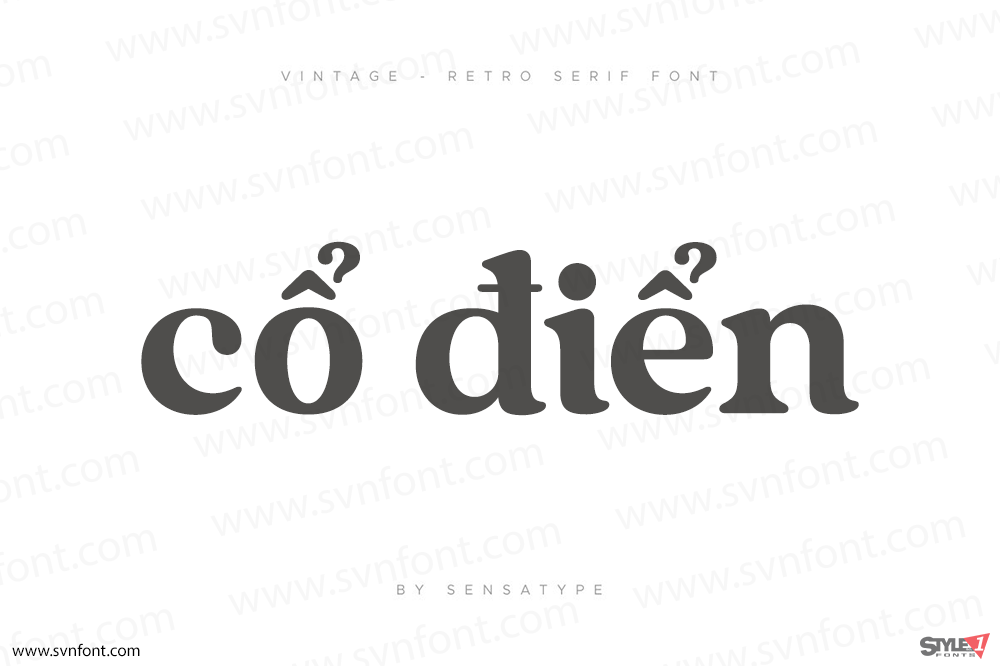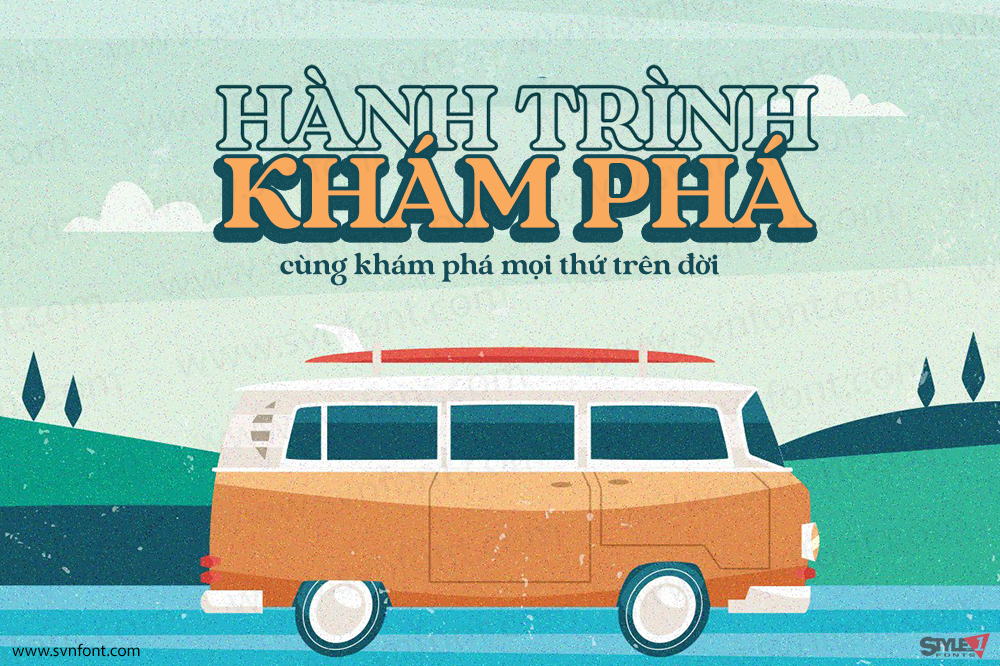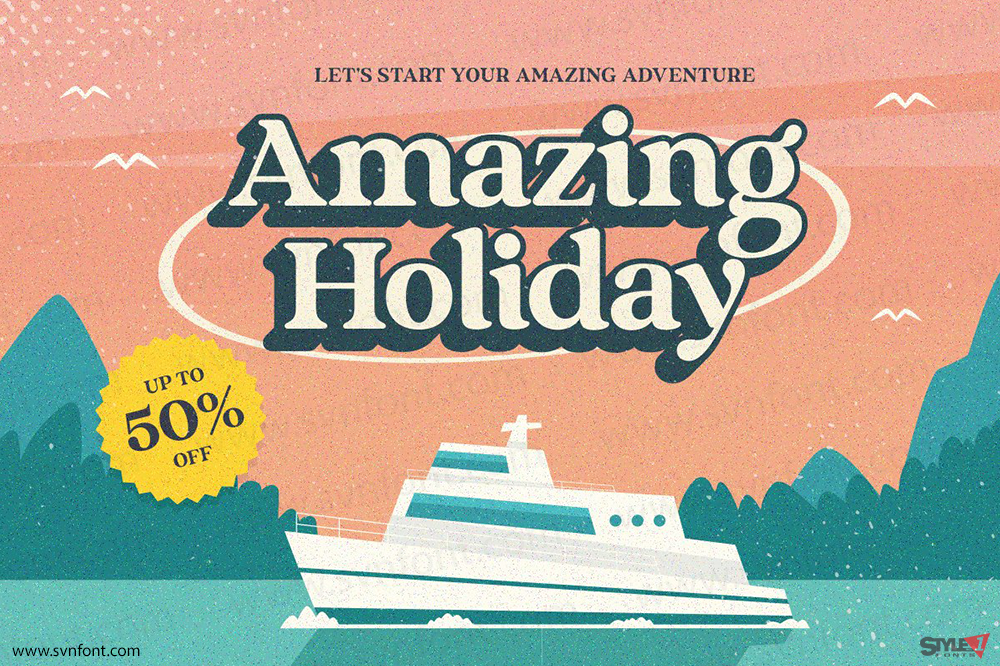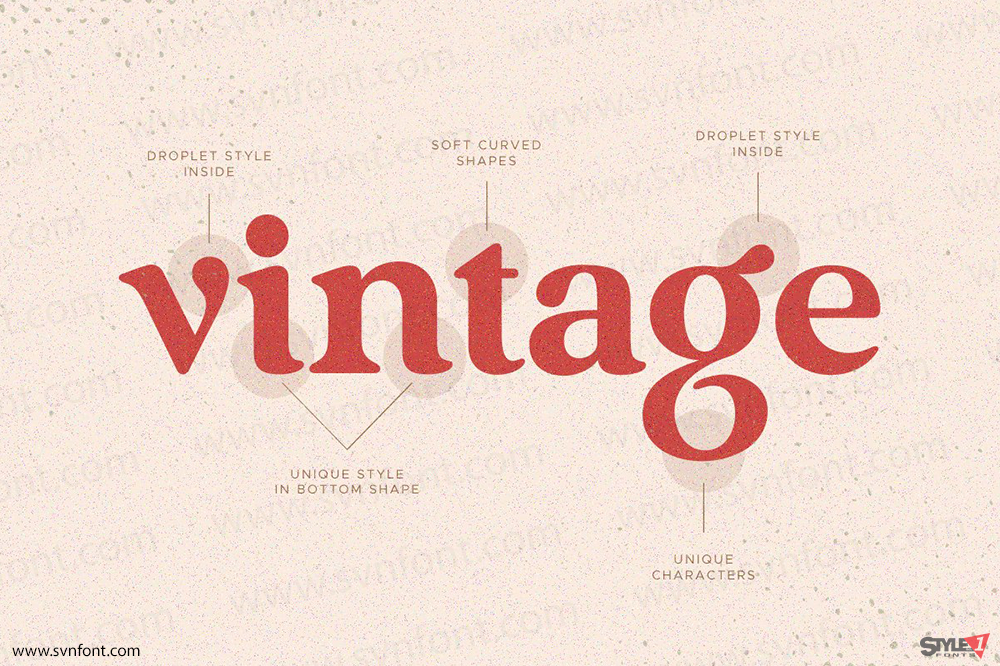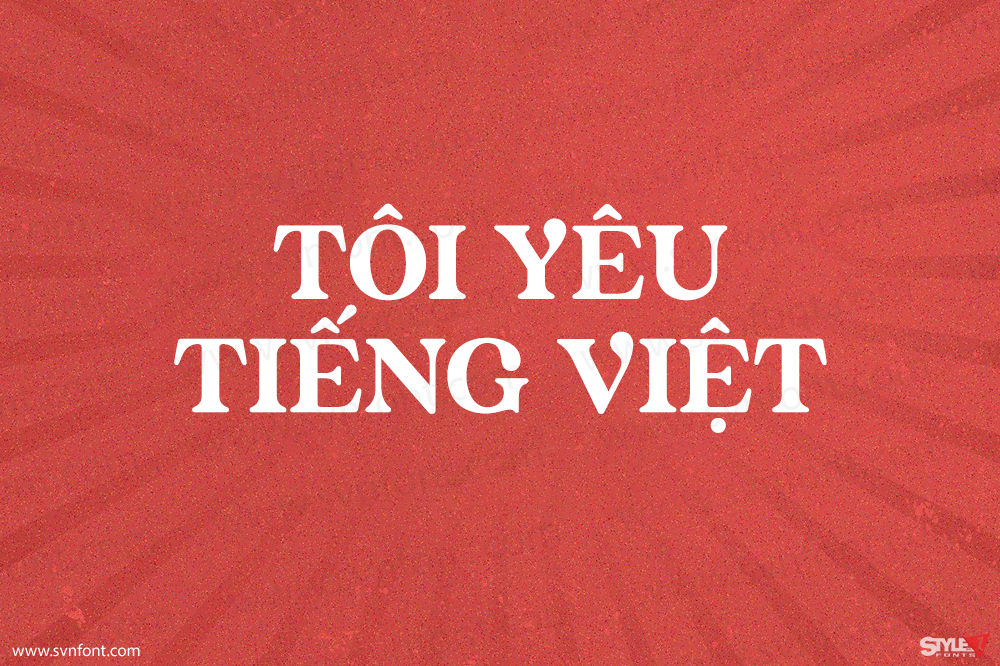
[Việt hóa] SVN-Vintage
Vintage font is a well-balanced contemporary font with a fancy, unique, and versatile vintage serif font that you can combine to get any variations and unique shapes easily just in seconds with stack it. It is a serif display font with moderate contrast that perfect for branding projects, logo, wedding designs, social media posts, advertisements, product packaging, product designs, label, photography, watermark, invitation, stationery, and any projects, it makes with a high level of legibility.